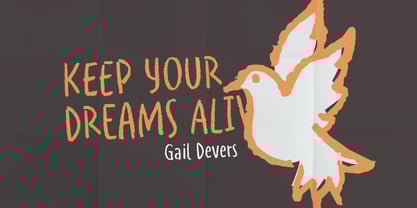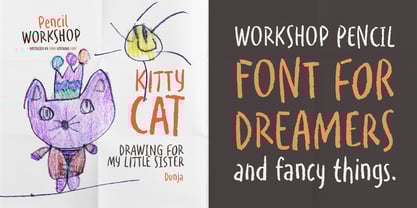
WORKSHOP Pencil
by Posterizer KG
WORKSHOP Pencil Font Family was designed by Lazar Dimitrijević and published by Posterizer KG. WORKSHOP Pencil contains 1 styles.
WORKSHOP Pencil is one more of WORKSHOP handwritten fonts, created to imitate a manuscript written with crayon or pencil. You can use the alternates and ligatures to give your design a realistic, hand painted look. If you find a single repeating glyph, you can change that by toggling between Stylistic Alternates. There are Cyrillic glyphs and few Dingbats in the same style. WORKSHOP Pencil is the perfect choice for children's literature, posters and other naturaly beautiful things.